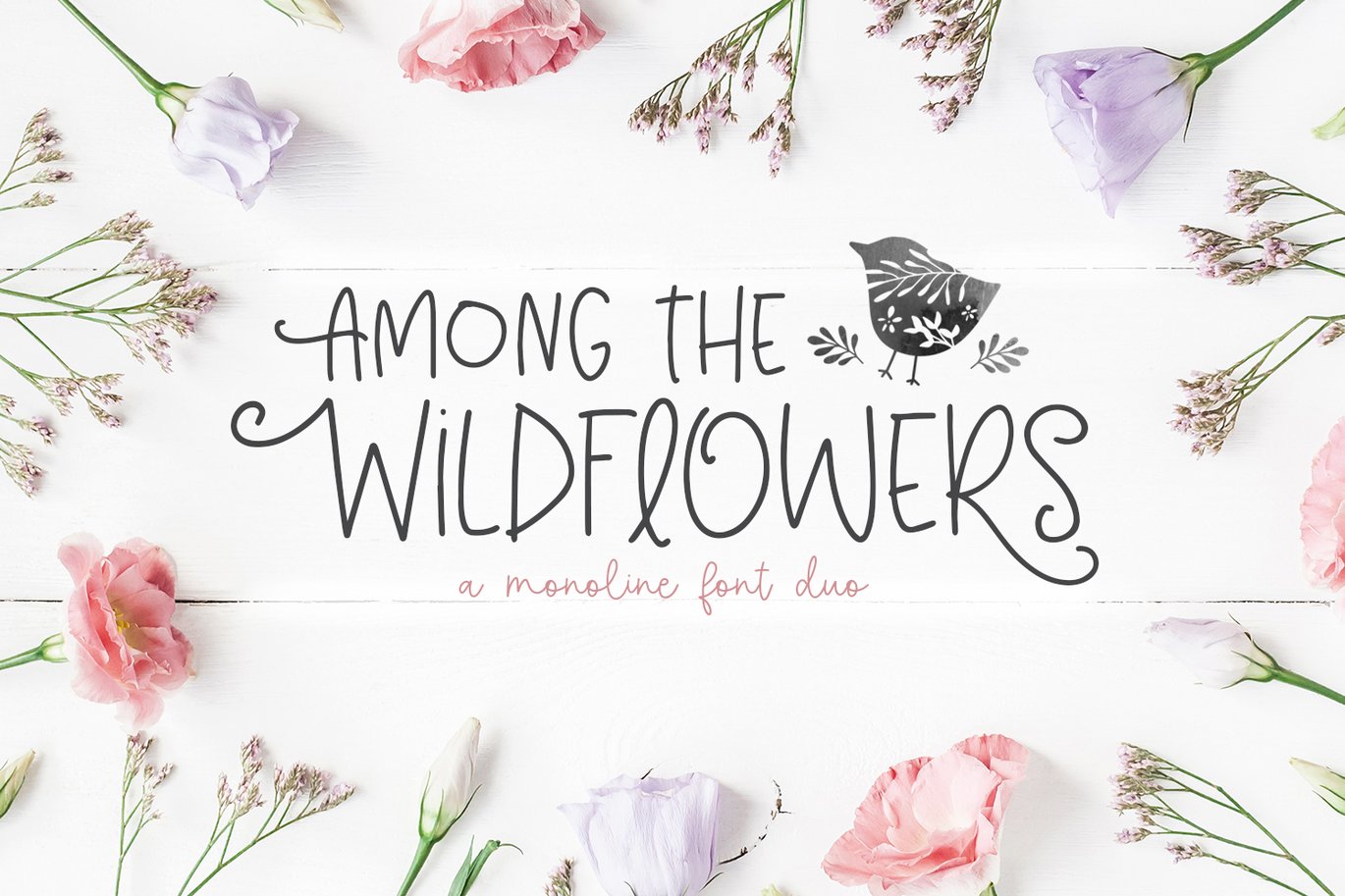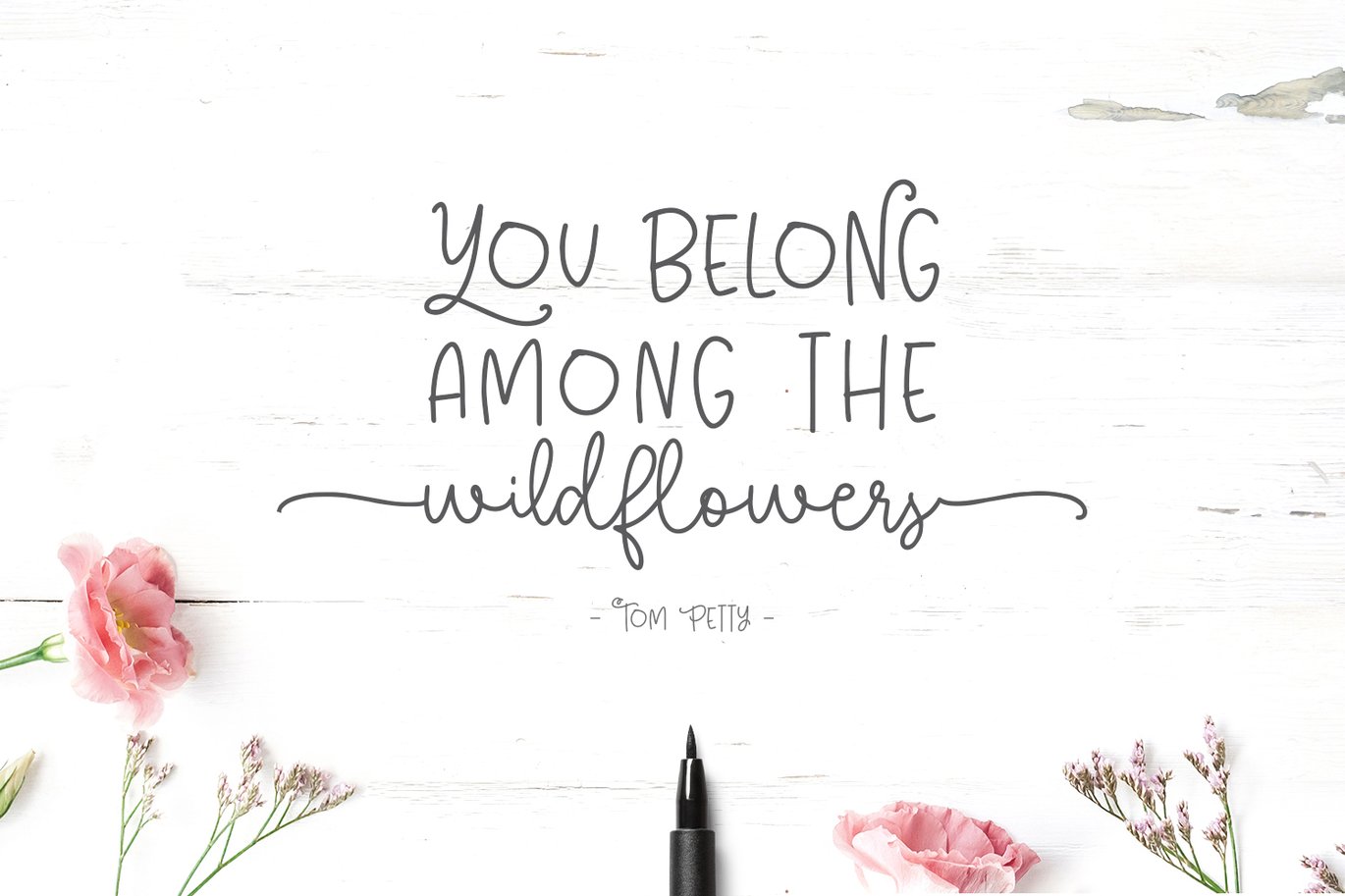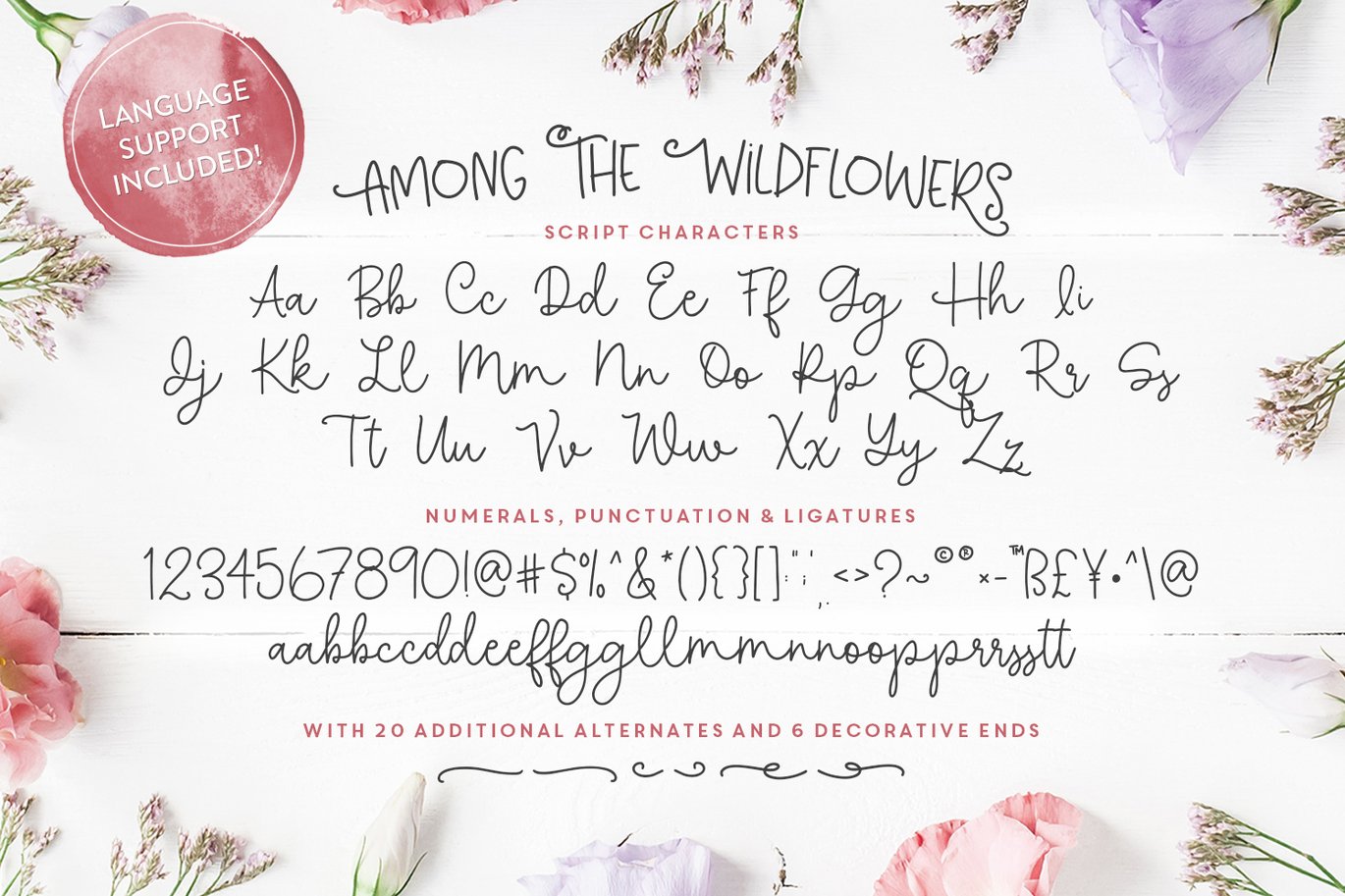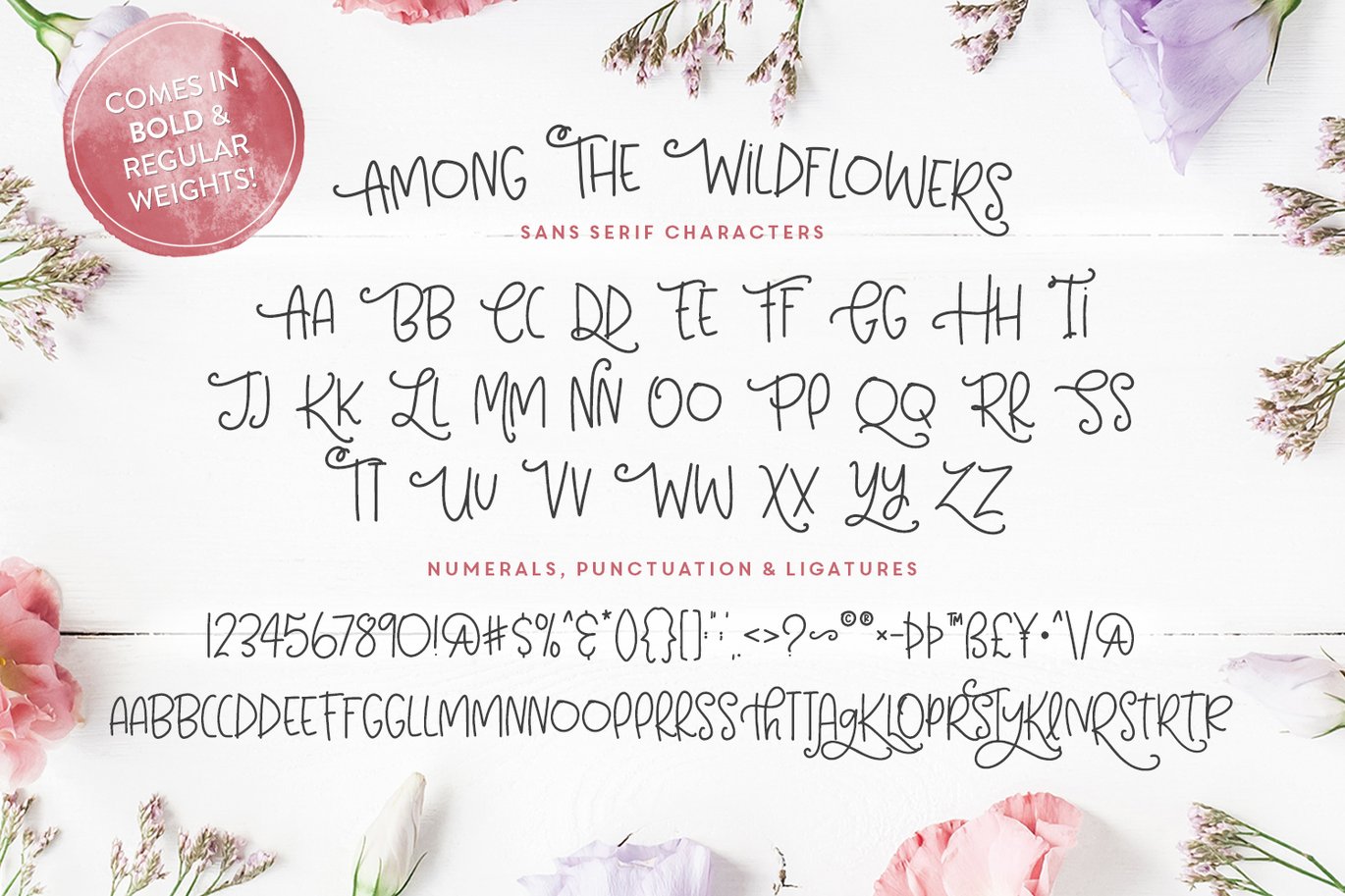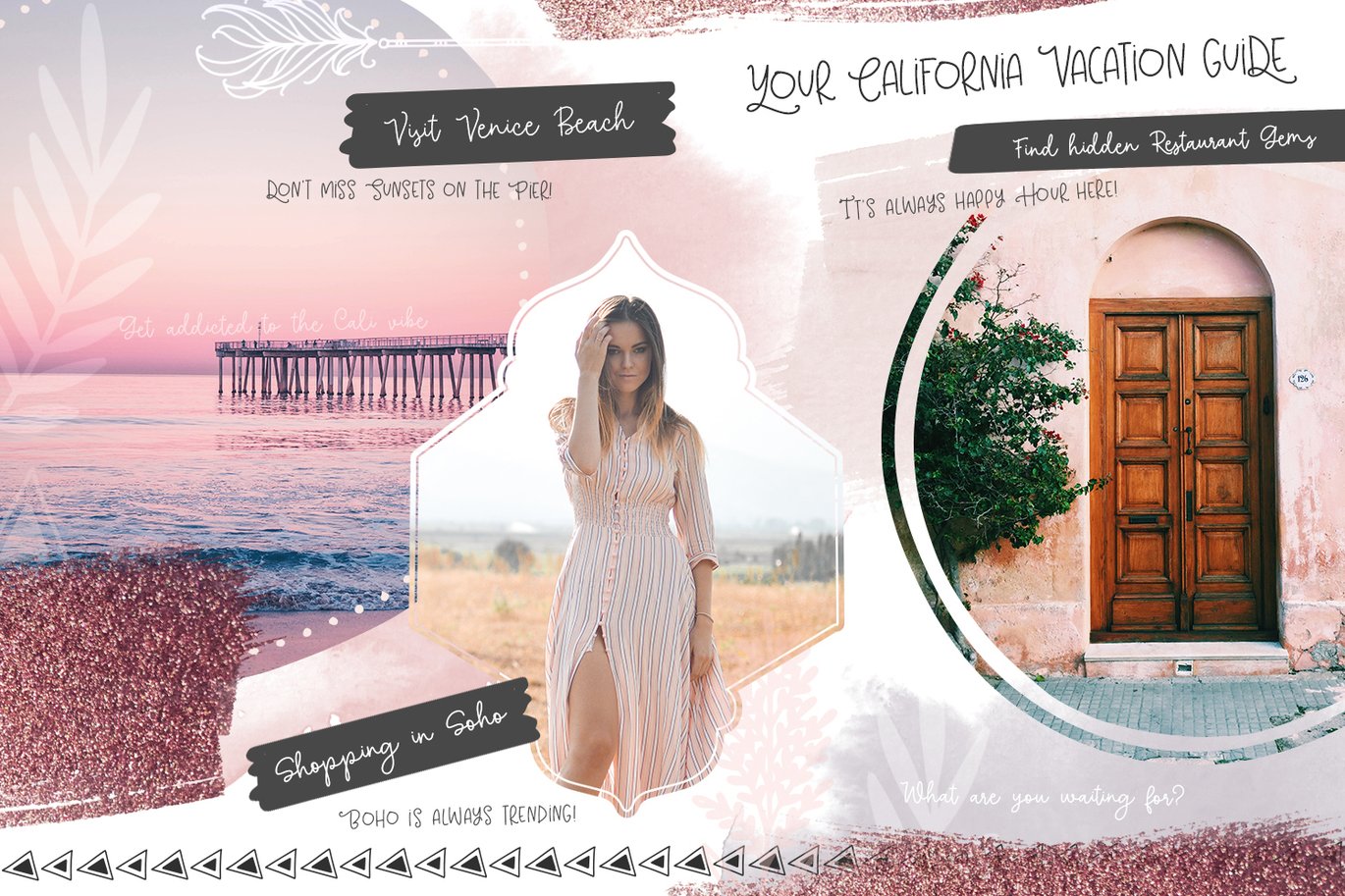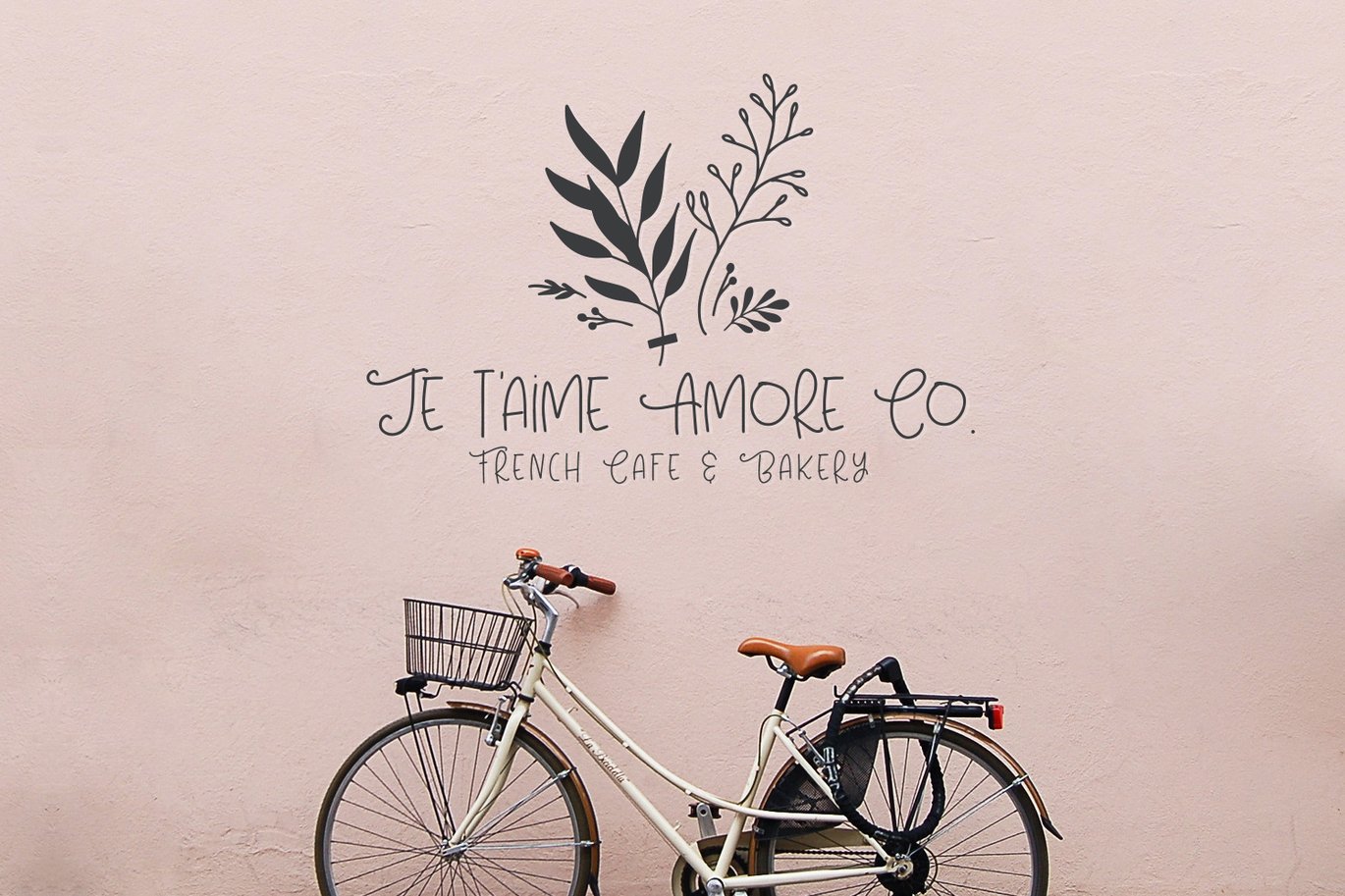
Among The Wildflowers Font Duo
Introducing, Among The Wildflowers – a romantic, Boheme-inspired monoline font duo for elegant invitations, decorative logos or lovely lettering. Use this set for branding, logo design, packaging, editorials, invitations & stationary.
- Among The Wildflowers Script (OTF), Including over 30 alternates and 6 decorative ends.